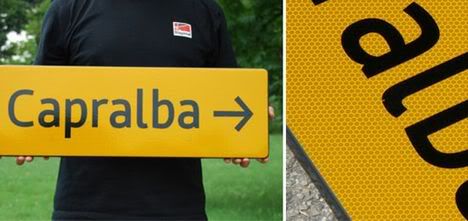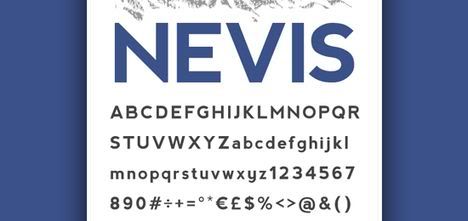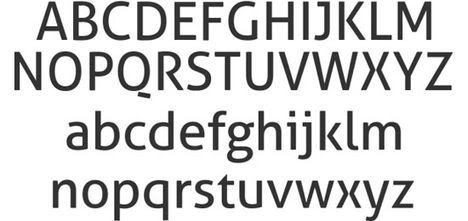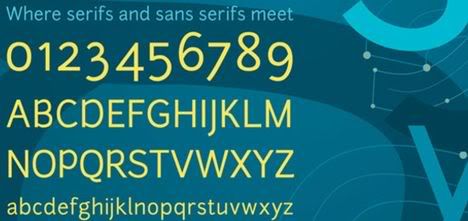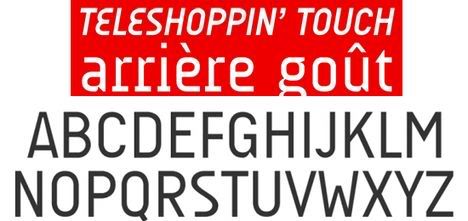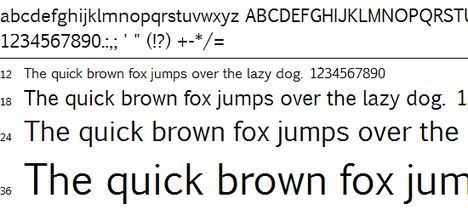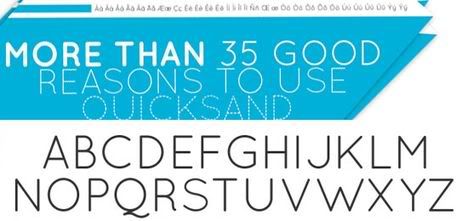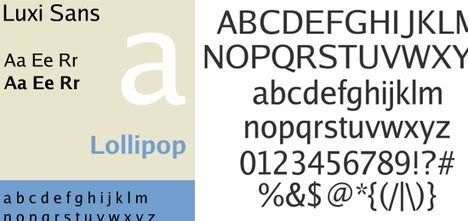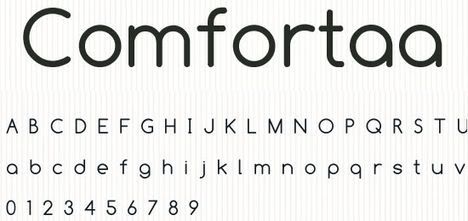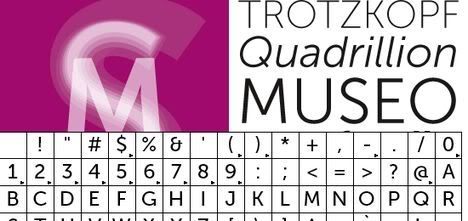
45 Brilliant High Quality Free Fonts To Boost Your Designs
Every now and again we take a look around, sthe best things in life are free - fonts are a great example of this concept. The choice is enormous, so the time you need to find them is usually the time you should be investing in your current projects. In this collection, you’ll find some of the best free and high-quality sans serif fonts for clean and professional designs that you can download on the web.
Rex Free Font
Rex is a font family with three weights – light, bold and bold inline – that was designed to create unique titles on the fly. It’s all caps font, but there is a difference between both – caps & small caps (see in the examples). Applicable for any type of graphic design – web, print, motion graphics etc and perfect for t-shirts and other items like posters.
Intro free font
The basic letters of the Alphabet like “A”, “O” and “H” are built or based on principles of simple geometric forms – triangles, circles and squares.
ABRAHAM LINCOLN
Inspired by the proportions of the 16th President of the USA, and advertisements/playbills of the 1800s, Abraham Lincoln is a humanistic display face with moderate contrast and sturdy serifs.
Jura Font
Jura is a elegant serif typeface of narrow proportions with distinguishing details. The rounded, wedge shaped serifs offer a more contemporary feels than many serif fonts, while maintaining legibility even at small sizes.
Nexa free font
MAVEN PRO Font
This collection represents the missing three lightest weights of the modern Sans-Serif Maven Pro typeface, including an ultra-thin hairline.
EDMONDSANS FONT
Edmondsans is hard-working display face in three weights, featuring some useful niceties like small caps, non-lining figures, and a few alternates.
Signika Font
Signika is a sans-serif with a gentle character, developed for wayfinding, signage, and other media where clarity of information is required. It has a low contrast and tall x-height to improve readability of texts in small sizes as well as in large distances from the reader. The typeface comes with a wide character set supporting most of the Eurpoean languages, small caps, pictograms and arrows.
BEMIO FONT
Bemio is an ultrabold sans with an extensive character set. It bridges the gap between old signage and craftsmanship with modern forms and simplicity. With more than 1000 glyphs, and full Language Support, Bemio is versatile and robust.
Flaminia Type System
Bonveno
Nevis
MEgalopolis Extra
Legendum
Delicious
Junction
Audimat
Euphemia
Quicksand
Luxi Sans
Comfortaa
Anivers
Museo Sans
advent font
Modeno Font
Often tf
Folks
CartoGothic Std
Blackout
Mayberry
Share Font
Fonce Sans Regular
surrounding | Download
surrounding__
Agrafa Hairline
Miso
Com4T Fine Regular
Conglomerfont
Fertigo
Whiteboard Modern
MG Open Cosmetica
Existence Light
Neighbourhood Type
Tallys
Resonance Bold
BENDER FONT
A chunky face for display type in two weights: inline and solid.
ATREYU FONT
Atreyu is a contemporary textura blackletter inspired from Gothic Illuminated Manuscripts of 14th century Germany. I've always had an affinity for blackletter since I grew up drawing calligraphy. And lets face it nothing can say Heavy Metal to Happy Holidays like a good old fashion blackletter.